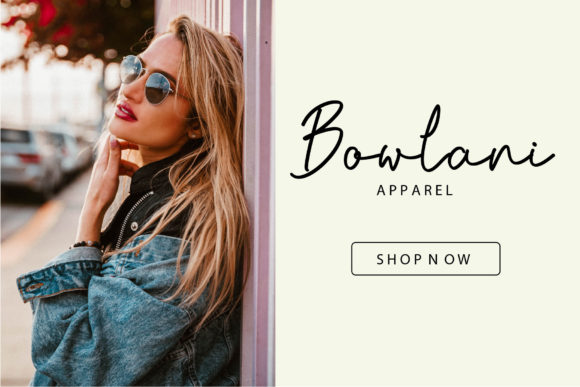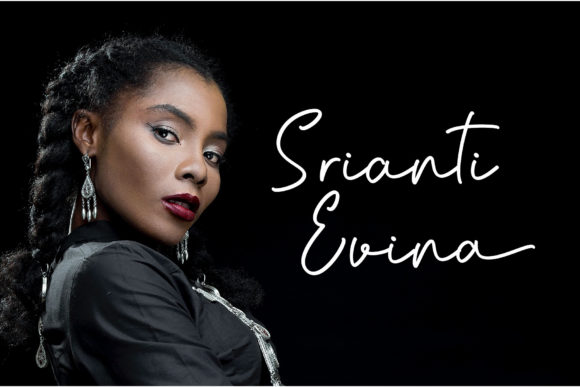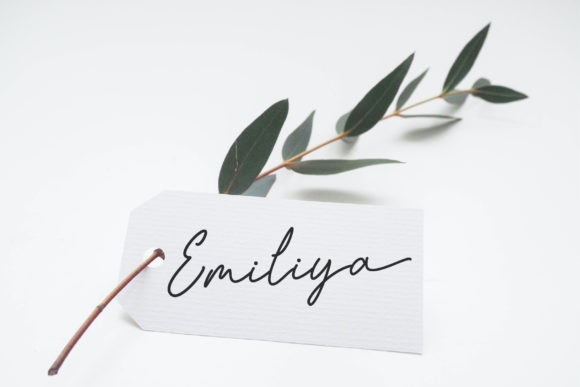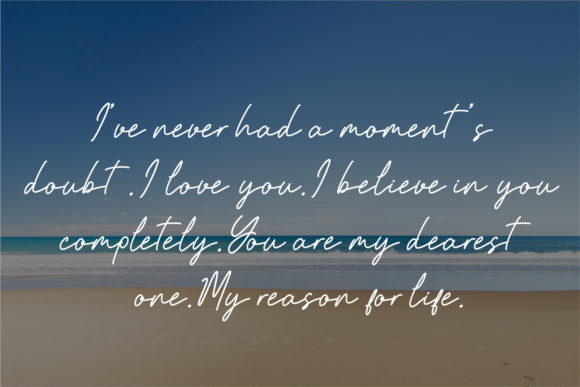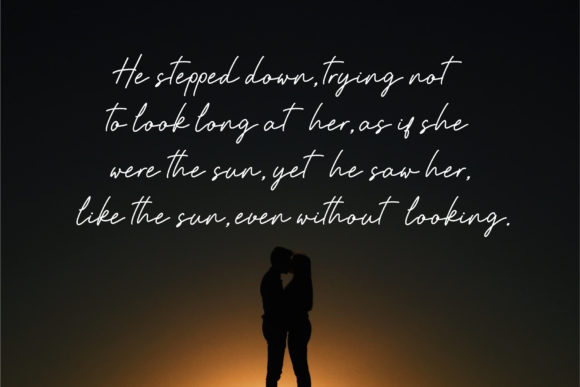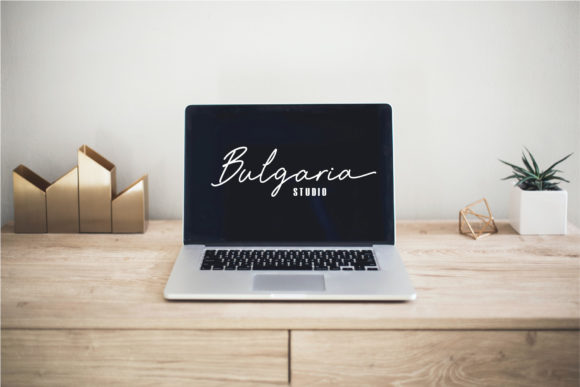
The Sweet Charm of Emiliya Font: A Designer’s Delight
I still remember the time I was working on a project for a client who wanted a font that exuded warmth, joy, and a touch of romance. I had spent hours scouring through font libraries, but nothing seemed to fit the bill. That was when I stumbled upon Emiliya Font, a sweet and cursive handwritten font that instantly captured the essence of what my client was looking for. In this article, I’ll share my experience with Emiliya Font, its features, and how to make the most of it in your designs.
An Honest Review of Emiliya Font
What I Love About Emiliya Font
- ✨ Sweet and Cursive: Emiliya Font is a beautifully crafted handwritten font that adds a touch of elegance and sophistication to any design.
- ✅ Highly Versatile: This font is perfect for a wide range of design projects, from wedding invitations and greeting cards to branding and packaging.
- 💕 Romantic and Joyful: Emiliya Font has a unique ability to evoke emotions and add a touch of warmth to your designs.
While Emiliya Font is an excellent choice for many design projects, there are a few things to keep in mind:
- 🤔 Limited Character Set: Emiliya Font may not have an extensive character set, which can limit its use in certain projects.
- ⚠️ Not Suitable for Body Text: Due to its cursive nature, Emiliya Font may not be the best choice for body text, especially in larger quantities.
A Practical Guide to Using Emiliya Font
- Experiment with OpenType features, such as glyphs and stylistic alternates, to add more creativity to your design.
The Designer Inspiration Behind Emiliya Font
Emiliya Font was designed with the intention of creating a beautiful and elegant handwritten font that captures the essence of romance and joy. The designer aimed to create a font that would be perfect for designs that require a personal touch, such as wedding invitations, greeting cards, and branding.
| What is Emiliya Font? | Emiliya Font is a sweet and cursive handwritten font designed to add a touch of romance and joy to your designs. |
| Is Emiliya Font suitable for body text? | No, Emiliya Font is not recommended for body text due to its cursive nature. |